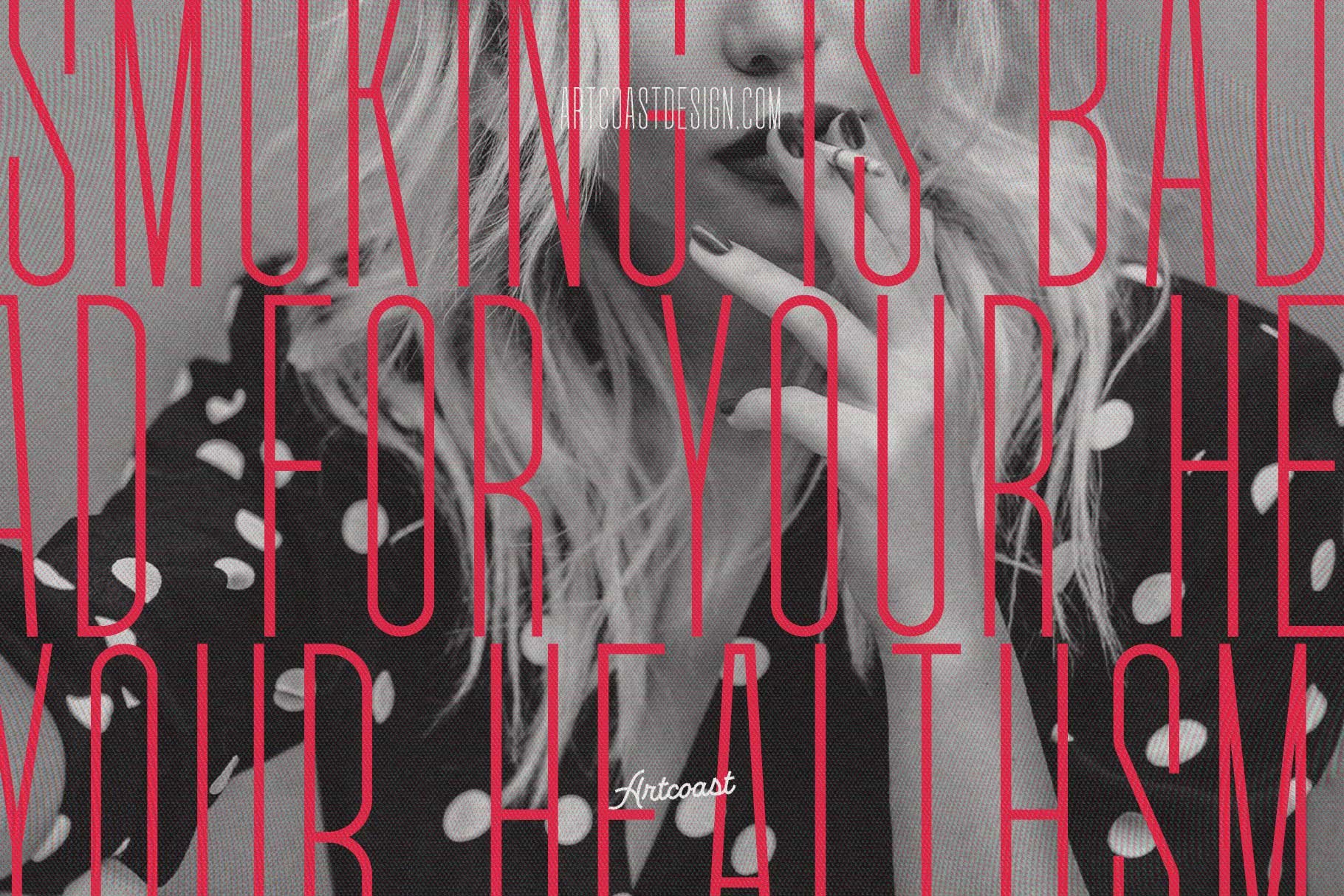
SA Vredina Thin Ultra Condensed Font
Introducing SA Vredina Thin Ultra Condensed: the epitome of sleek sophistication in the realm of typography. This elegantly tall and incredibly slender font is a masterpiece of design, engineered for those who dare to make a statement. With its ultra-condensed profile, SA Vredina elevates minimalism to an art form, making it an impeccable choice for headlines, branding, and upscale marketing materials.
Perfect for fashion labels, luxury brands, and avant-garde magazines, SA Vredina Thin Ultra Condensed brings a touch of exclusivity and refinement to any project. Its high stature is not just a stylistic choice but a strategic tool, enabling designers to create visually captivating compositions that speak volumes in the most understated manner.